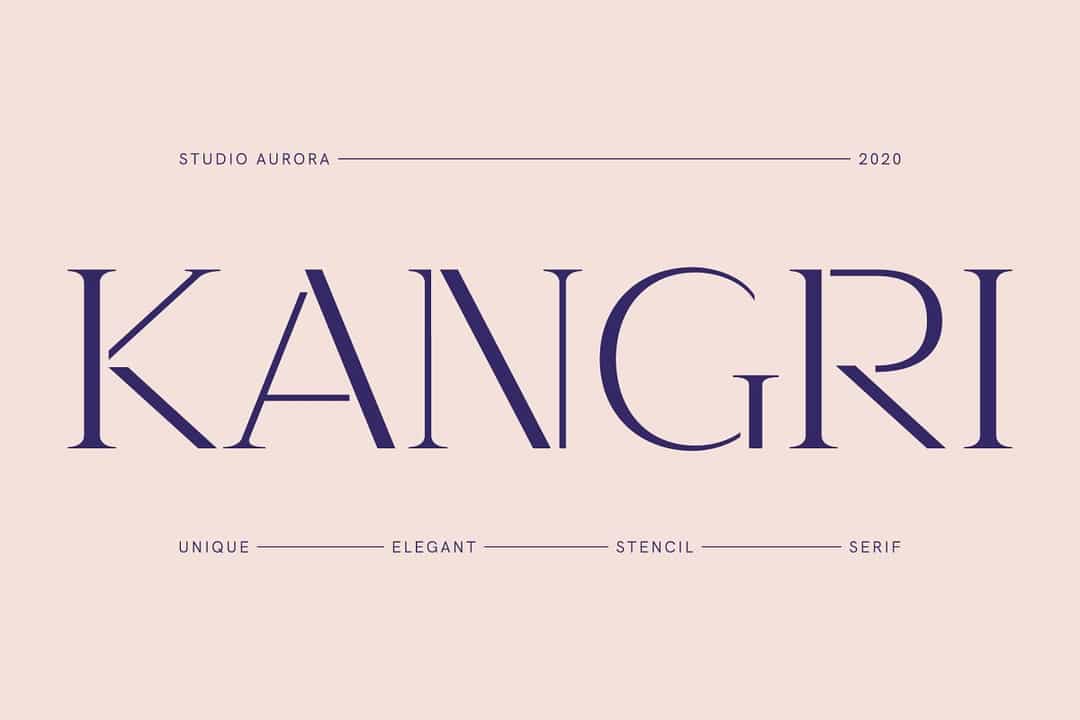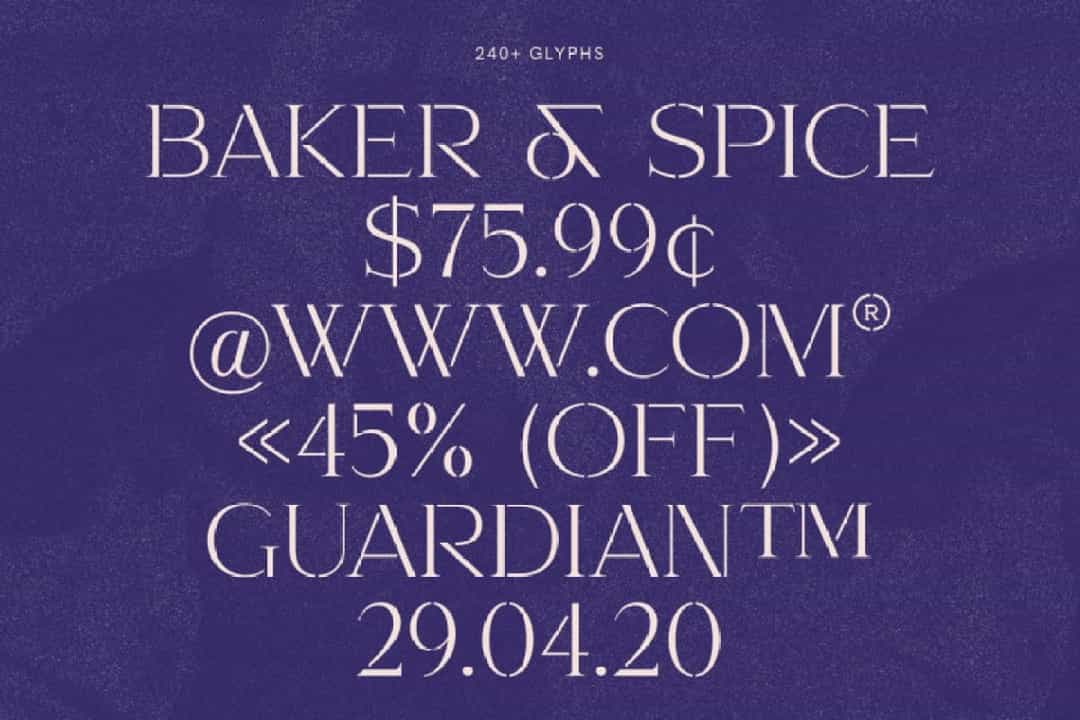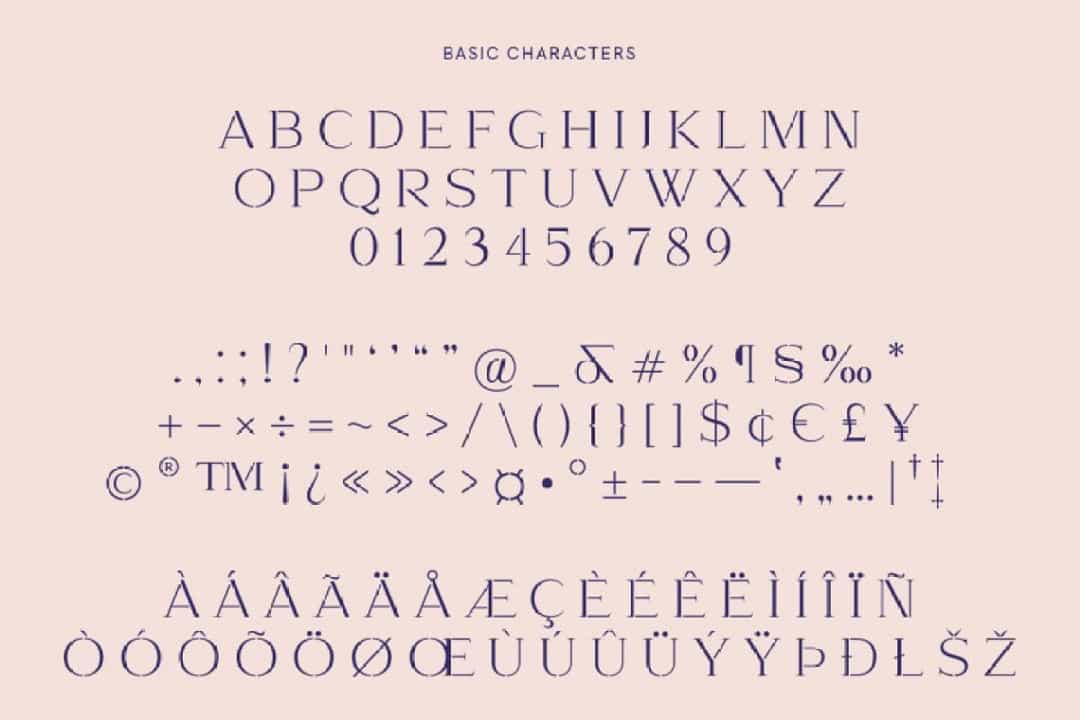
Kangri is a beautiful Serif Stencil type face that is ideal for the addition of elegance into your designs. Since this is a serif-based display font, this font is best used in various applications like magazine covers and inner layouts; logos/branding, invitations, quotes, invitations and blog headers, headlines as well as posters for advertising/invitations and the like.